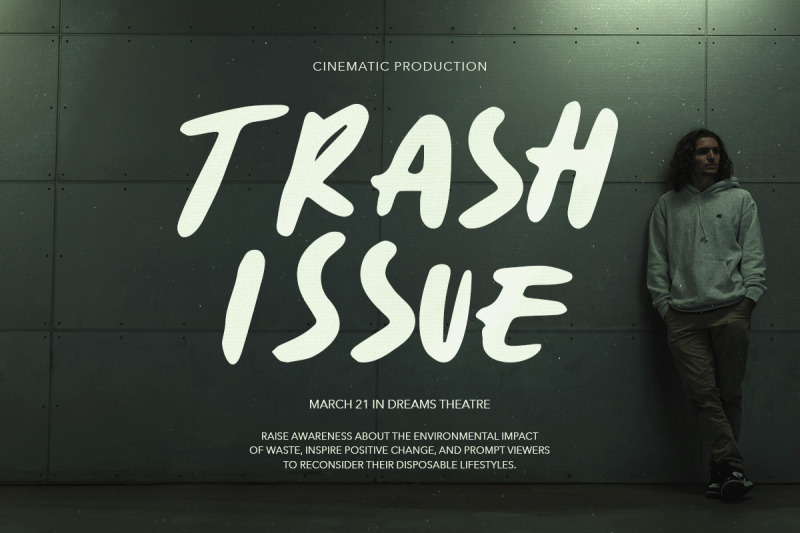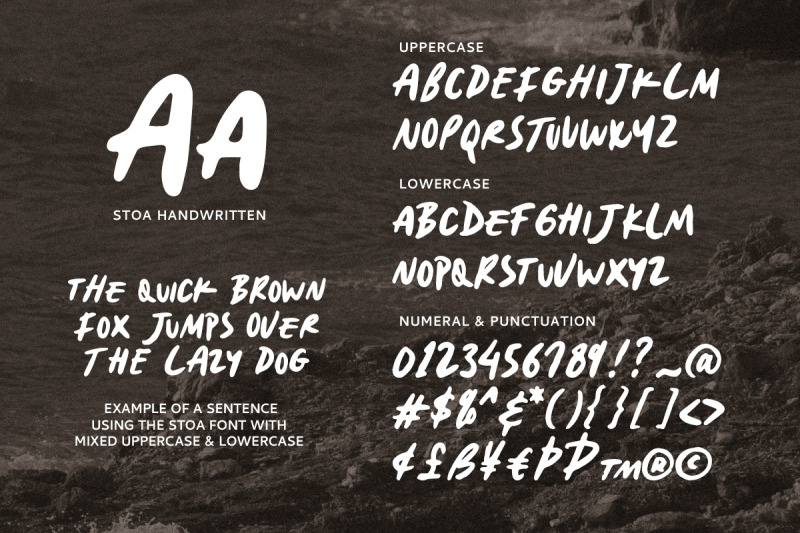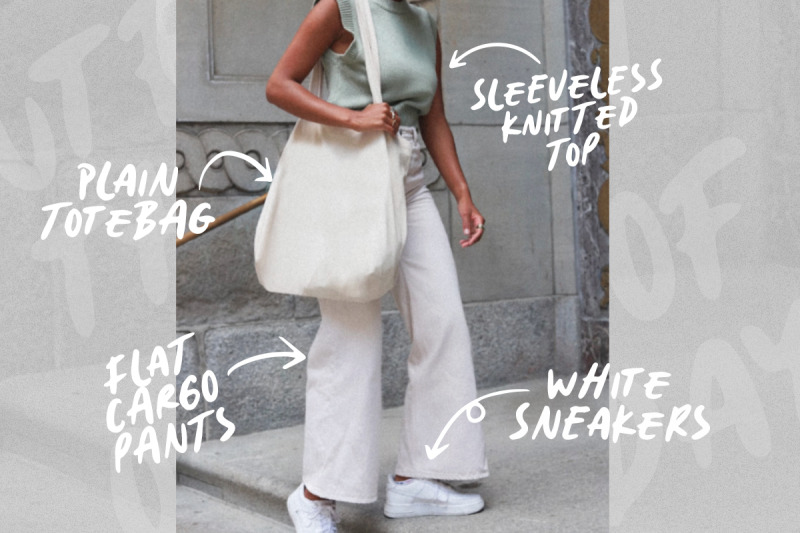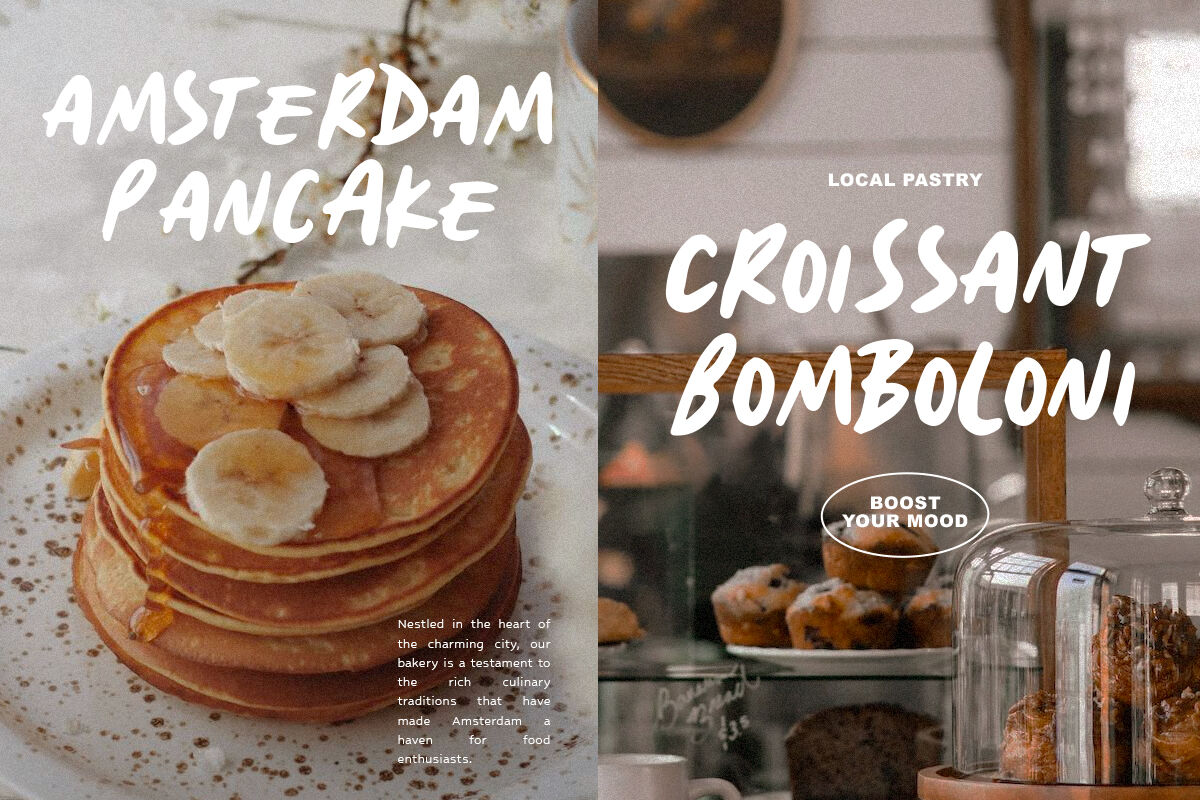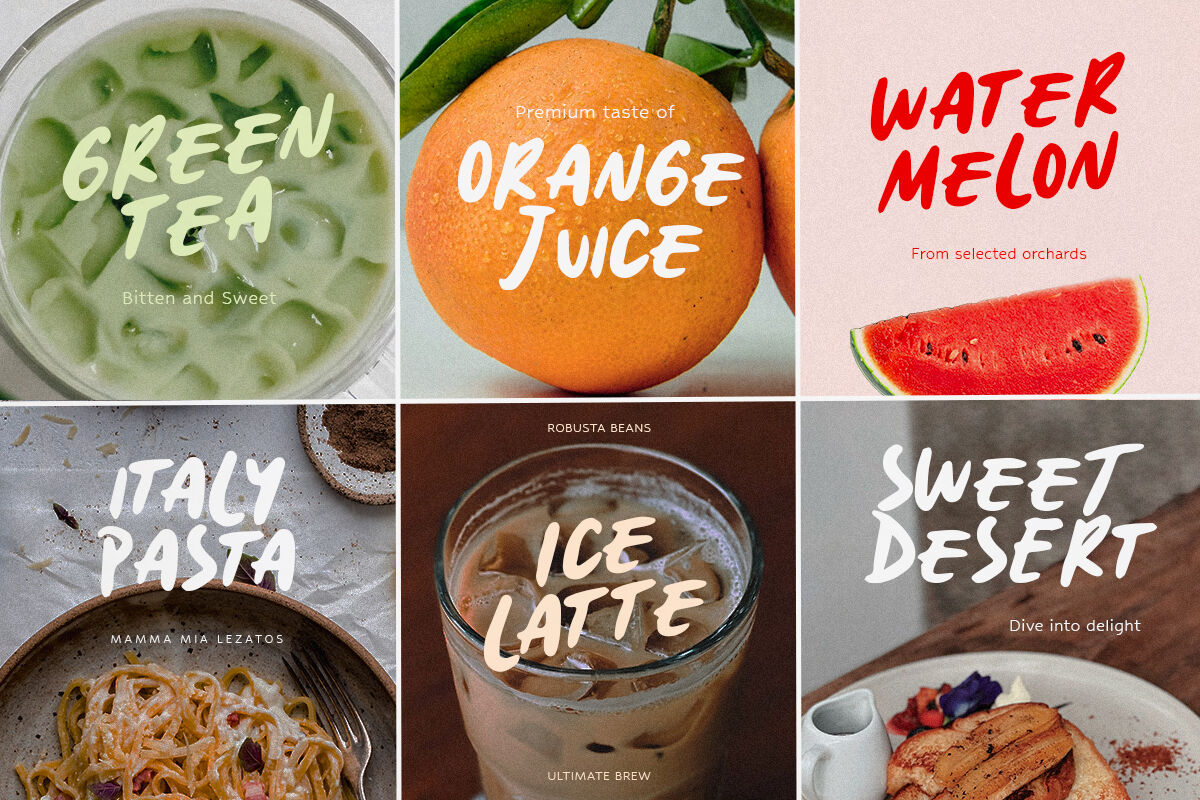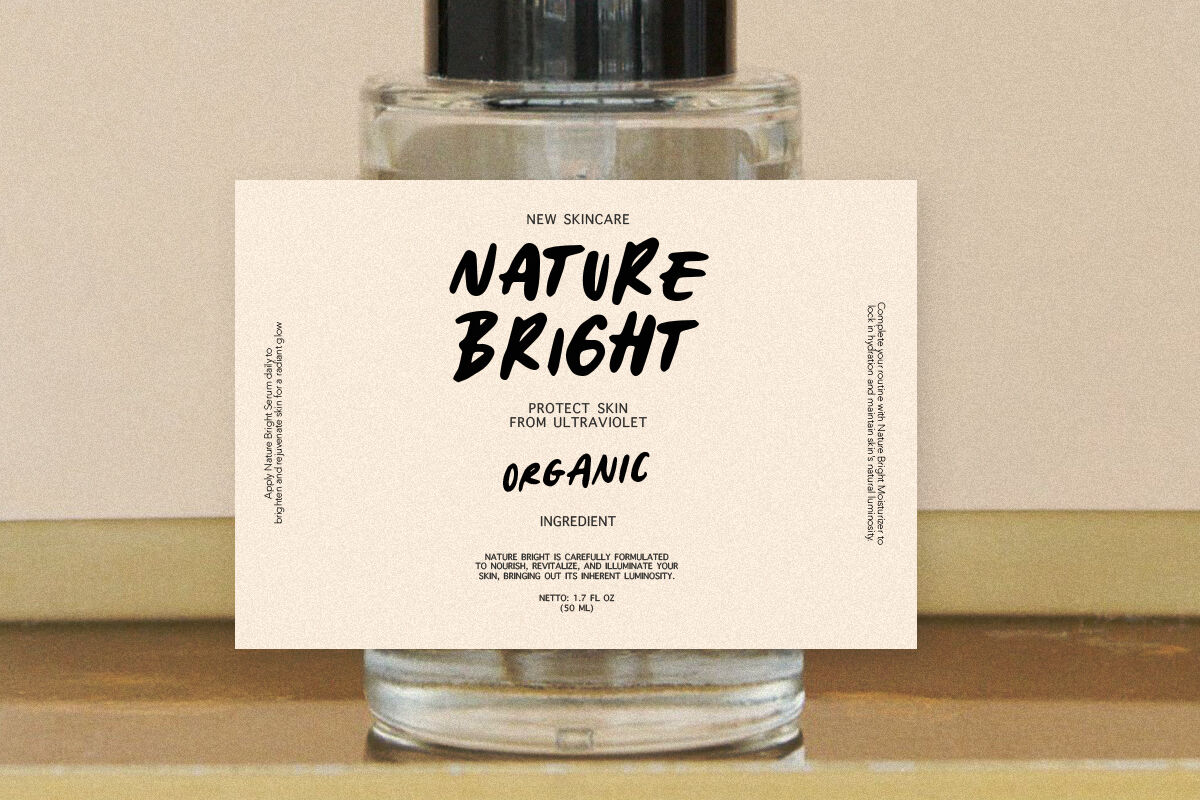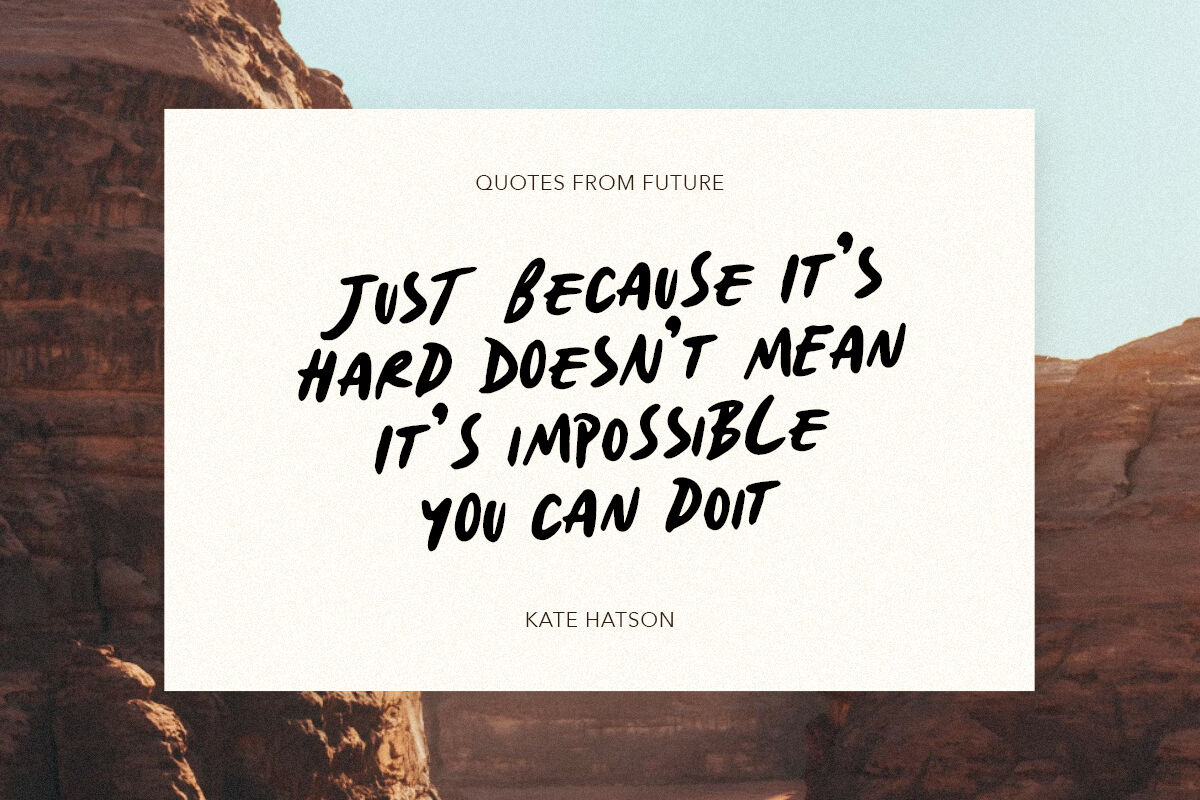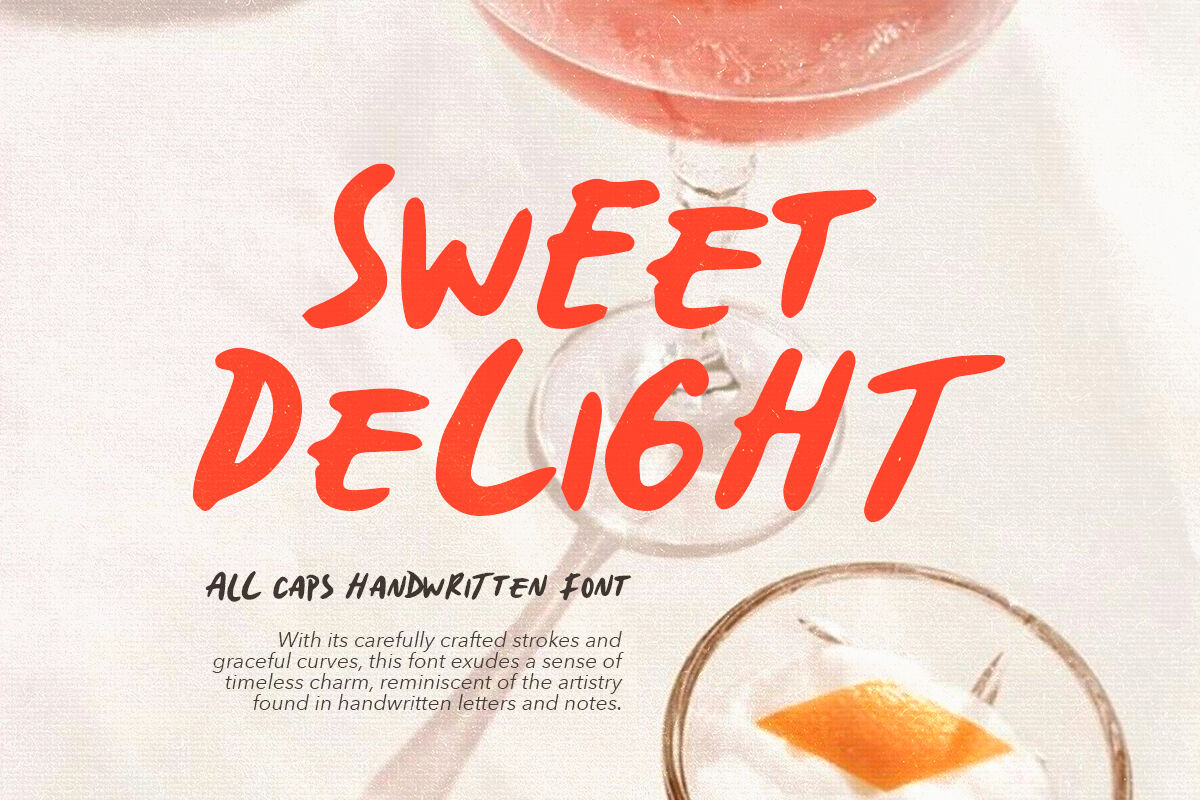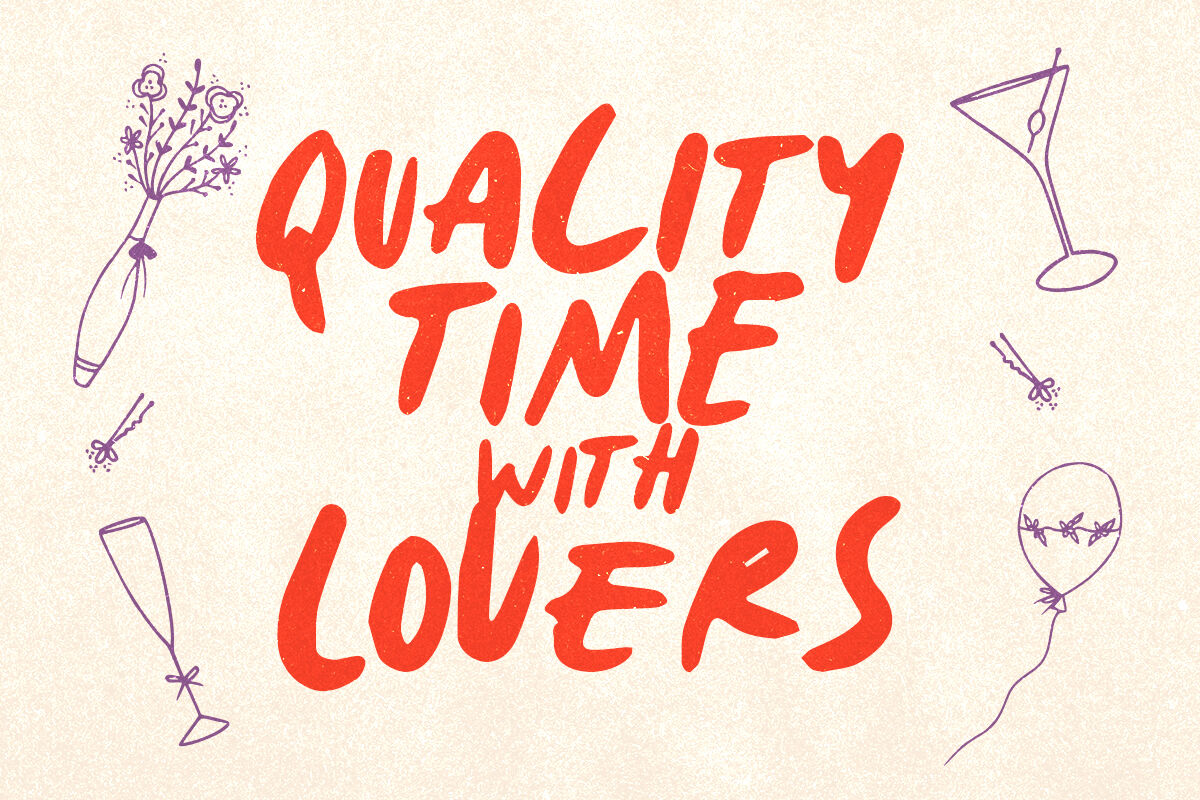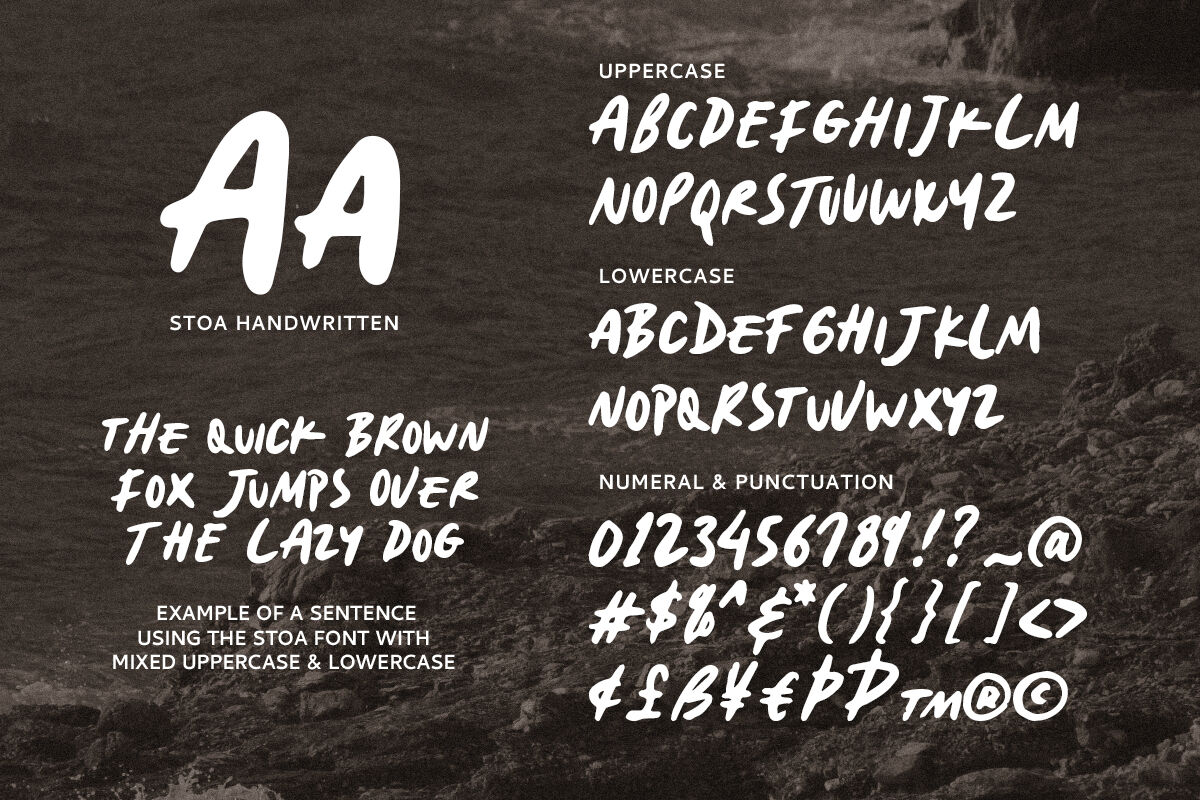
Sweet Delight - Handwritten Font
Sweet Delight is an all caps handwritten font with bold looks. With different uppercase and lowercase, you can combine in the same word to make your project looks more natural and handmade. You can use this font for any purposes especially quotes. This font also support multi language.